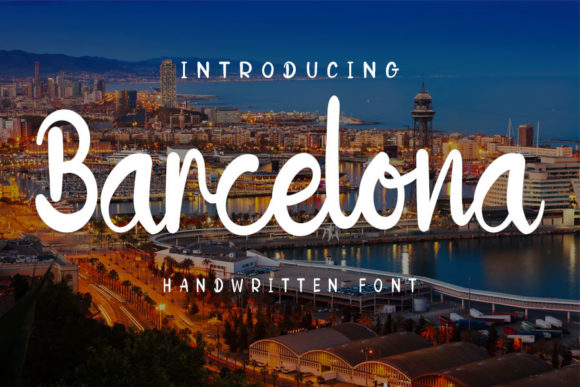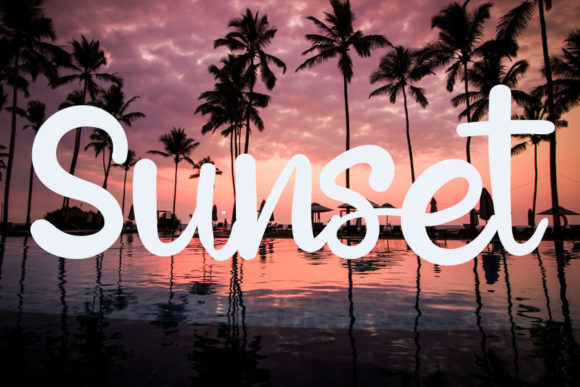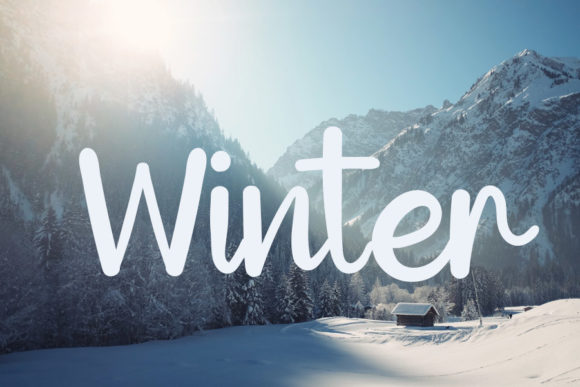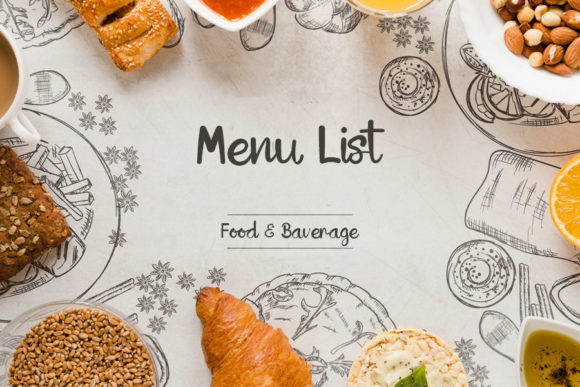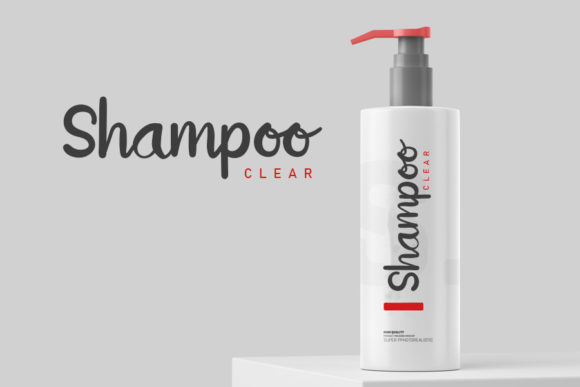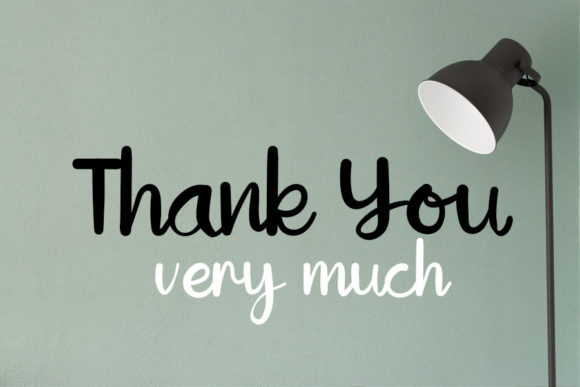
Barcelona Font
About Barcelona Font
Barcelona is a gorgeous handwritten font that impresses through its natural and elegant style. Add it to your most creative ideas, and notice how it transforms them into authentic pieces of art!